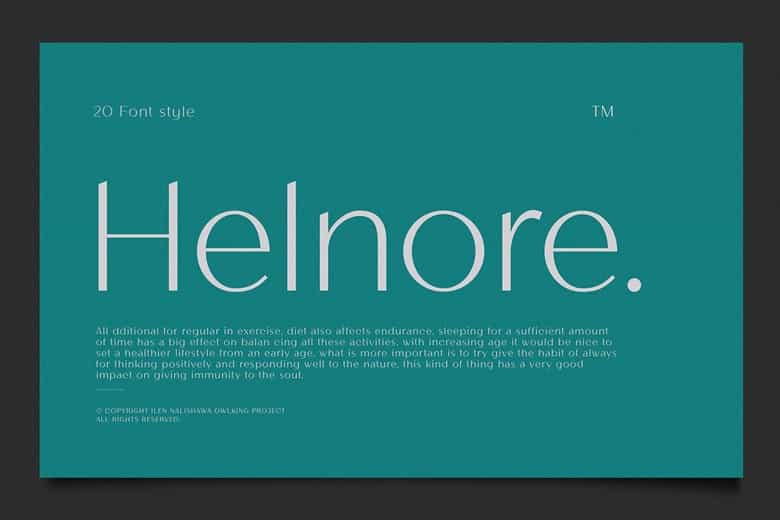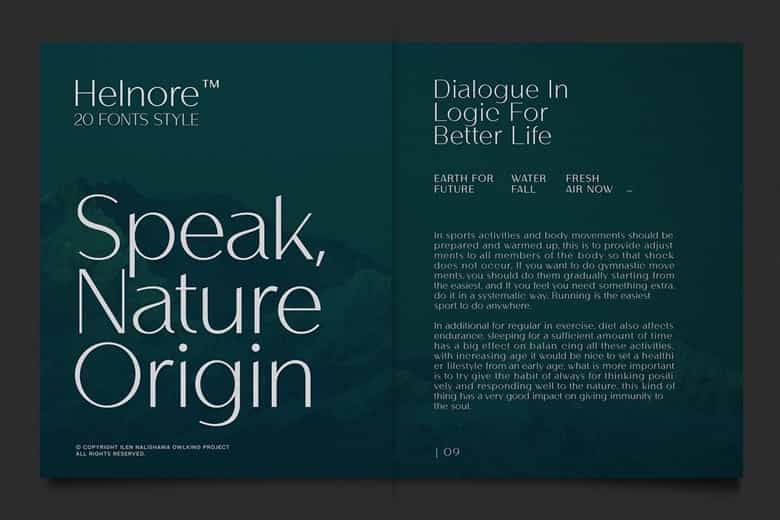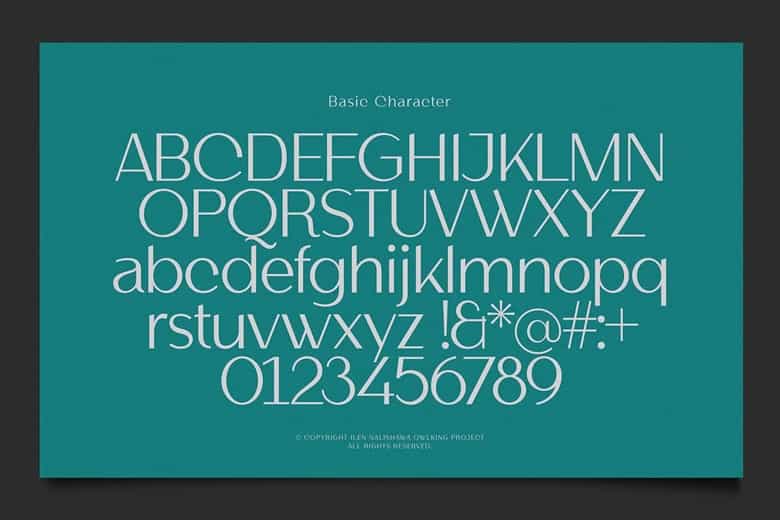
Helnore is an elegant sans-serif font with some of the letters having more affected stems and making it look more modern even in thinner letters. This font is intended to create an elegant impression and also looks so premium in few words for a letter-based title and logo.